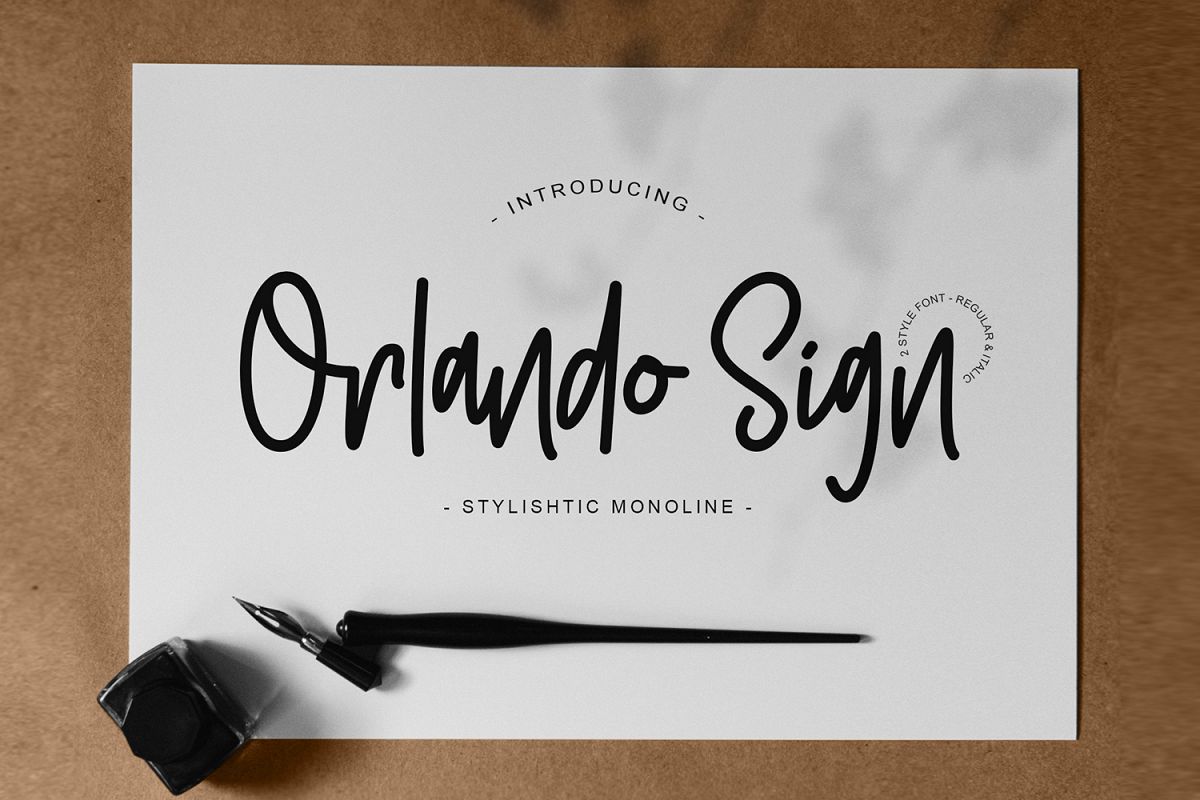
Orlando Sign | Stylishtic Monoline
Orlando Sign is an Stylishtic Monoline font with 2 style; Regular and Italic, perfect for logo design, branding, clothing design, signage, posters, wedding invitations and so much more!